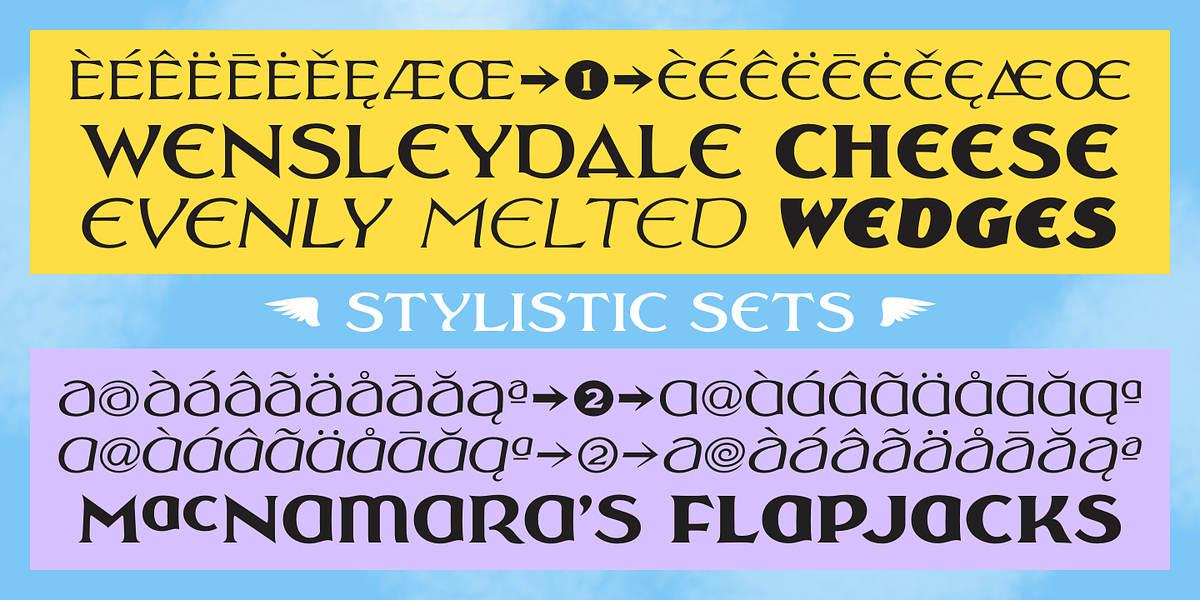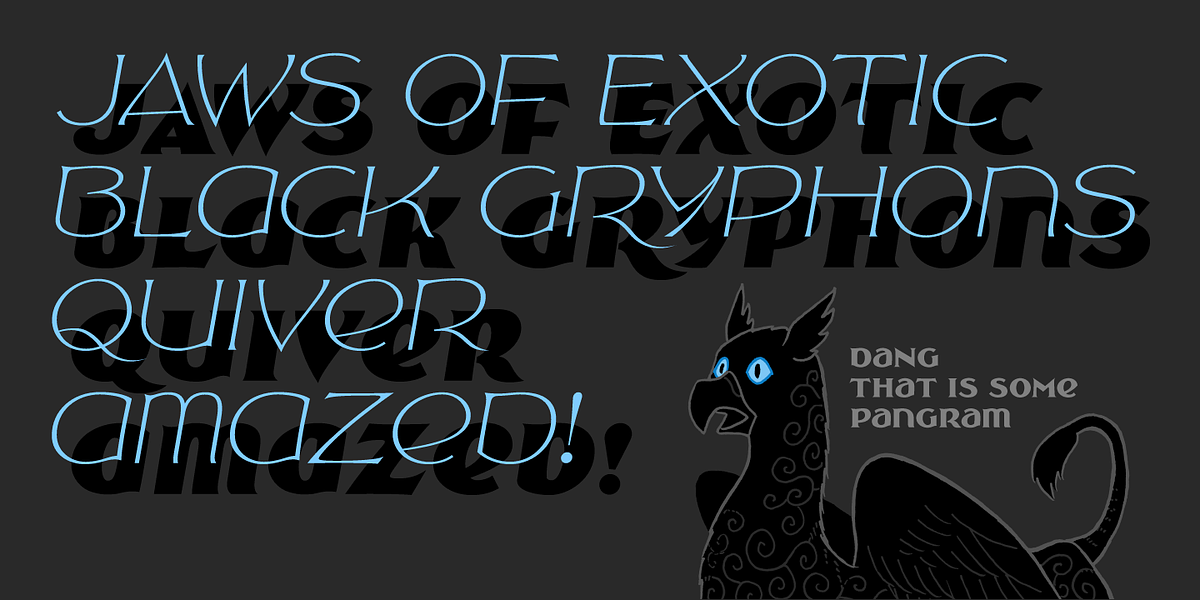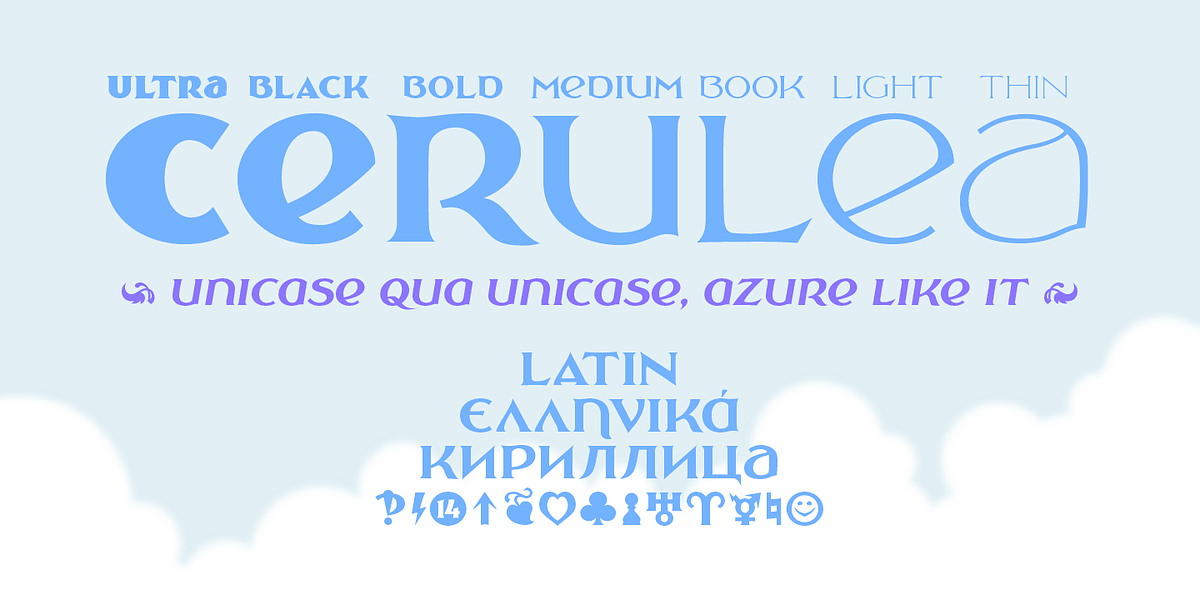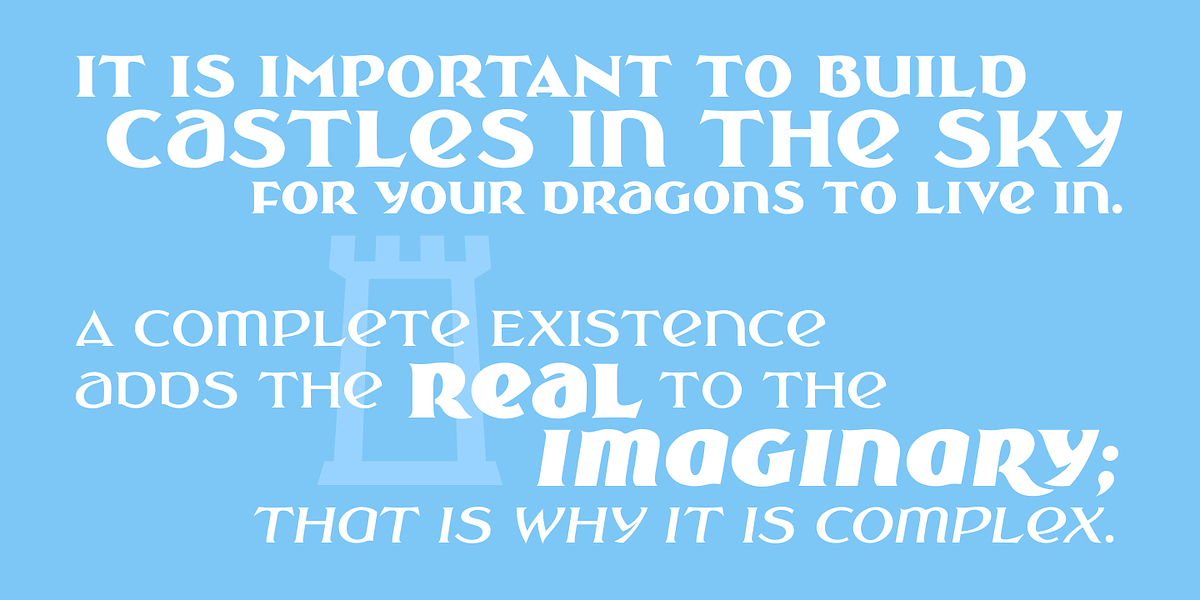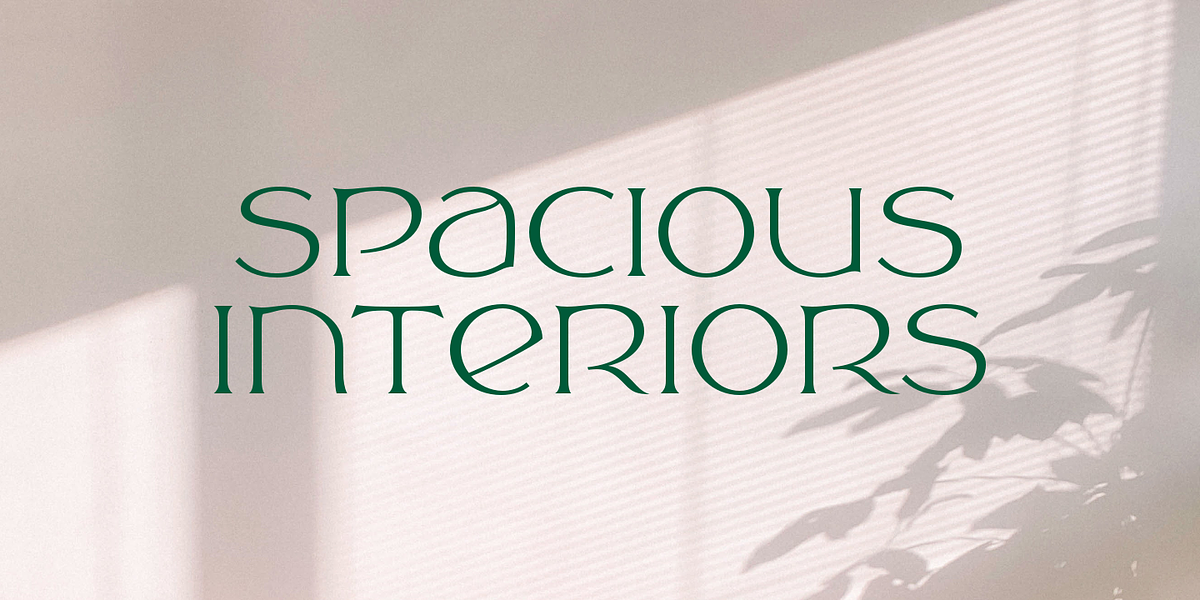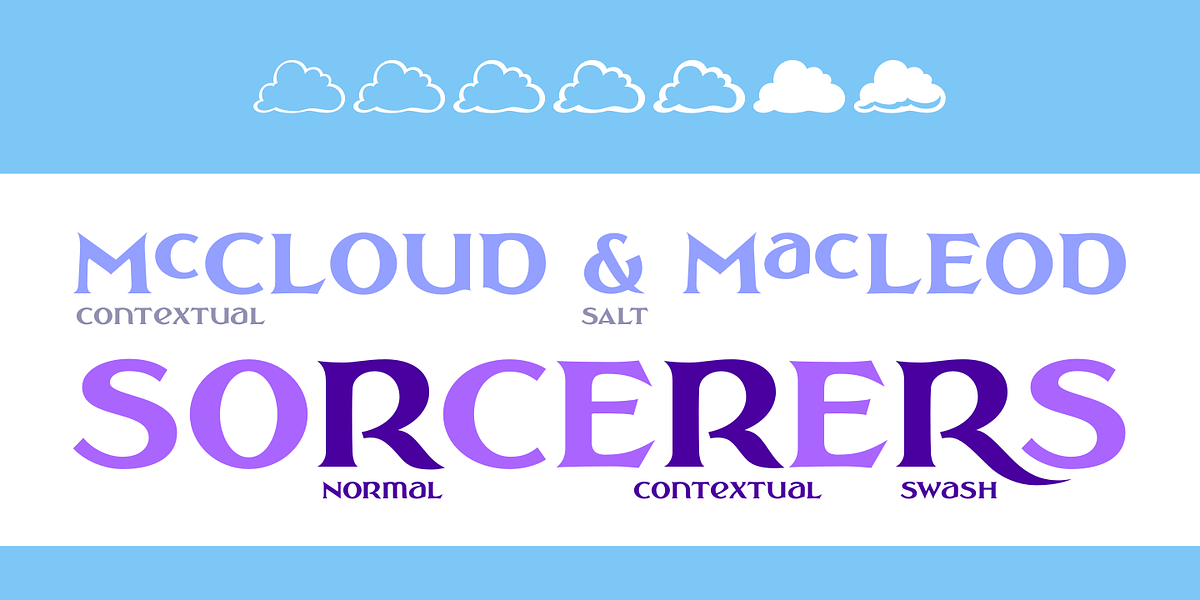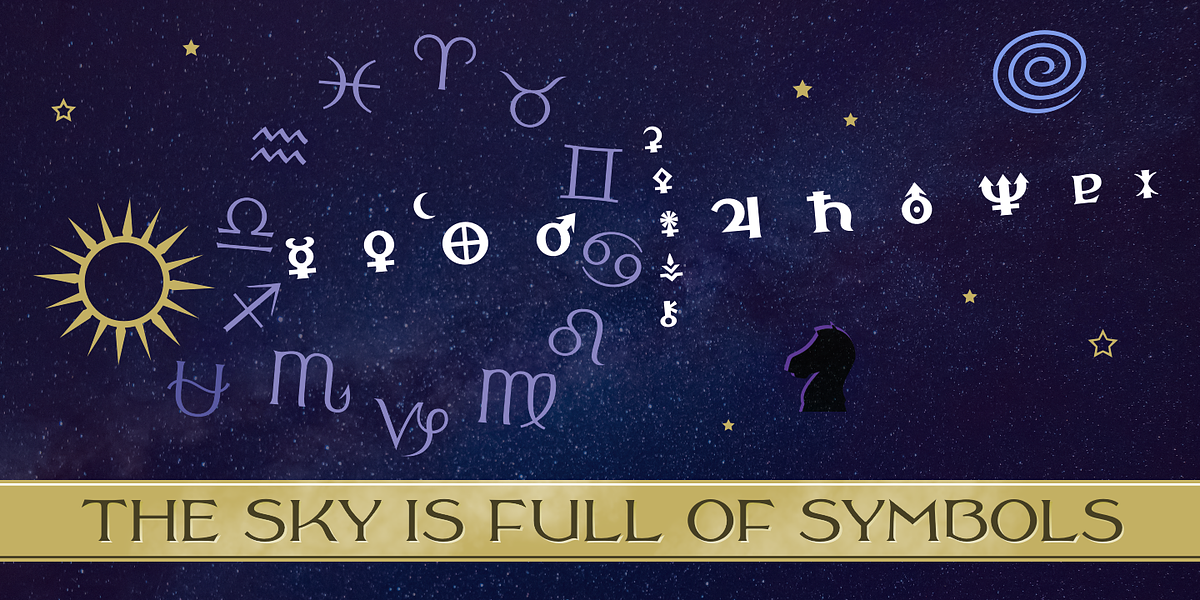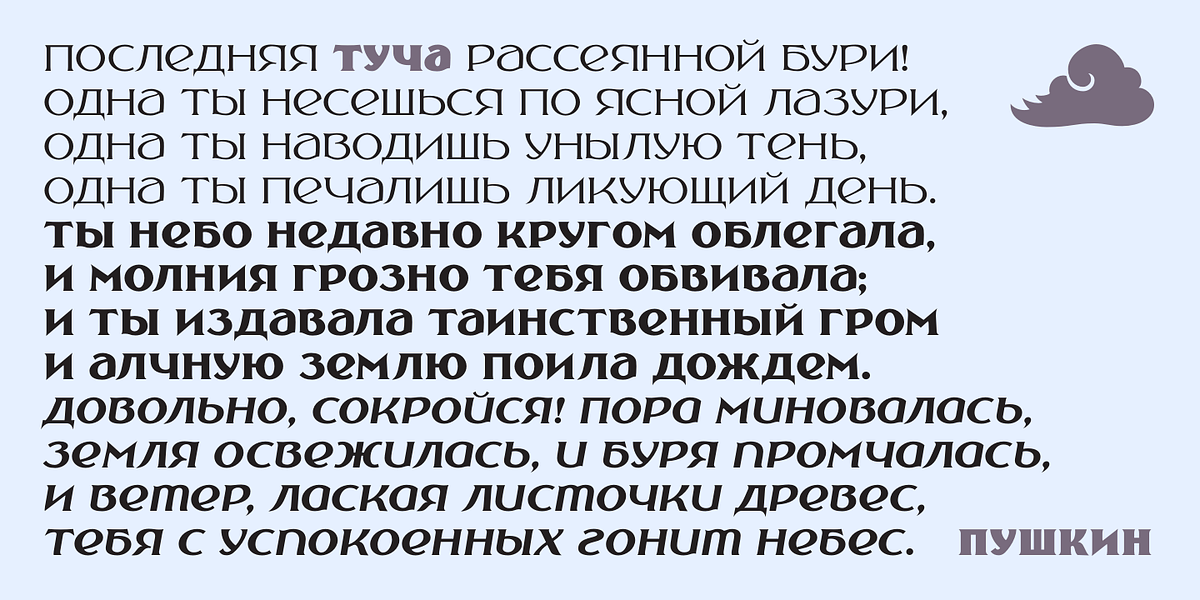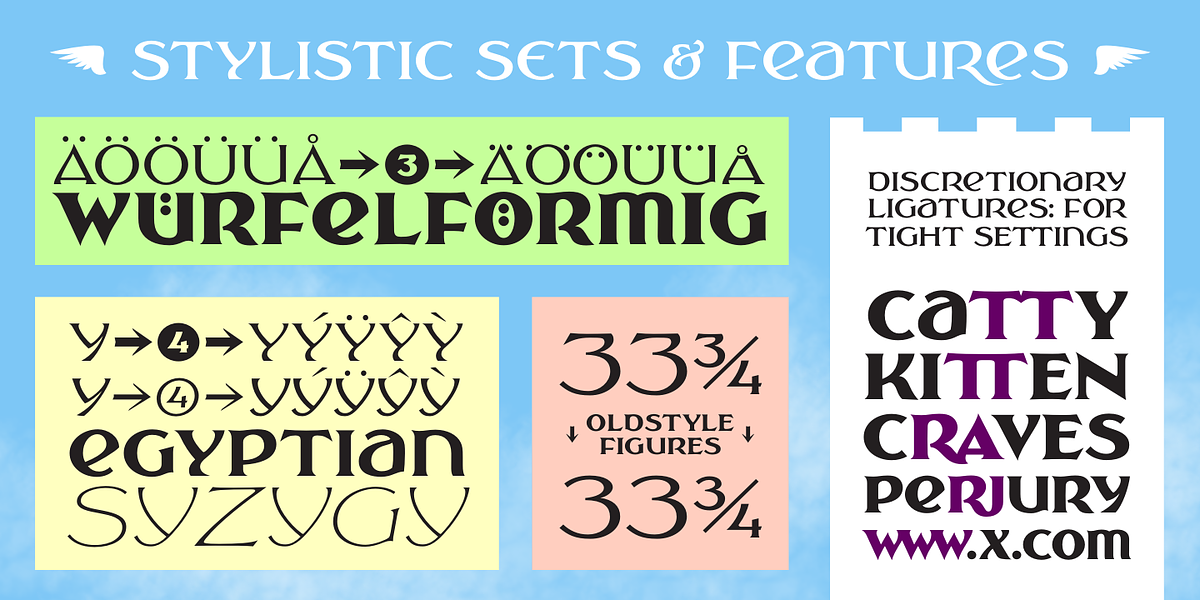
Cerulea
Cerulea is a unicase display serif font inspired by Art Nouveau, Classical Roman, and Uncial styles. Its wide bowls, sharp points, and subtle wandering curves create an airy and fantastical feel. The font comes in seven weights with true italics for each, allowing for a range of moods from zephyrous to thunderous. Cerulea also features stylistic sets that allow for variation between the serious capital form and the more fanciful lowercase form of each letter. With over 800 glyphs, including pan-European Latin, Greek, Cyrillic, fractions, circled numbers, planet and zodiac symbols, card suits, chess pieces, and ornaments, Cerulea is a versatile font suitable for branding and headlines.